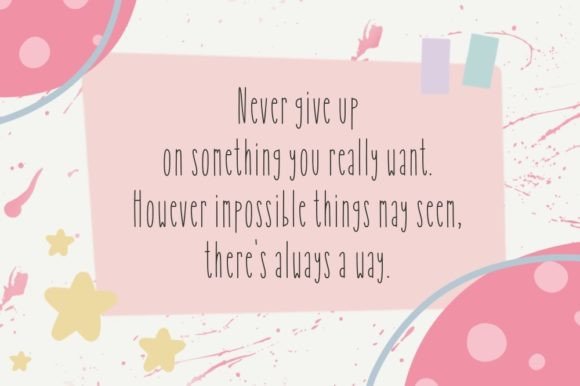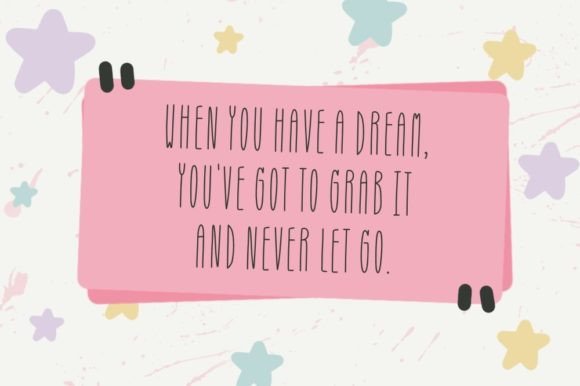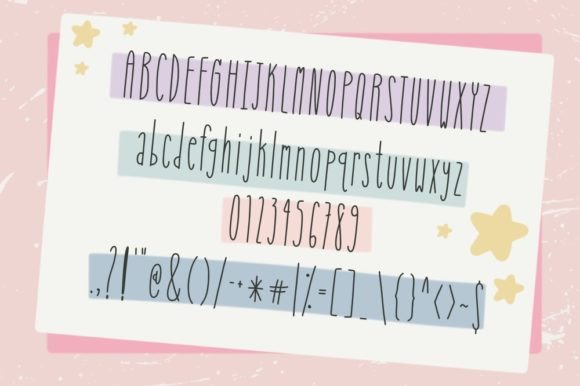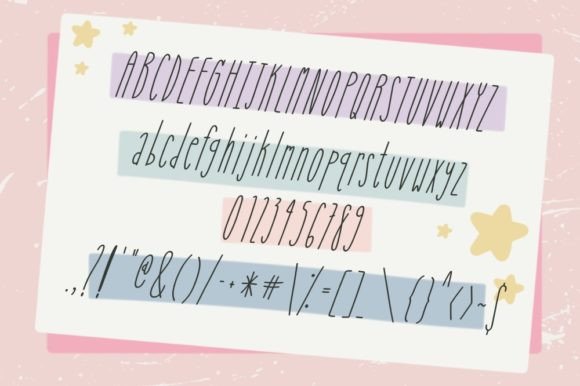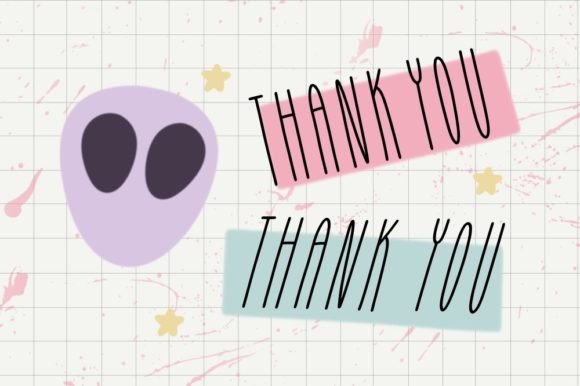
Alieny Font
About Alieny Font
**Alieny** is a delightful and charming handwritten font with a slim and tall appearance. It radiates cuteness and sweetness, making it a versatile choice for various creative projects. Whether you’re using it for taking notes, crafting, digital design, presentations, titles, or designing greeting cards, this font is designed to be your go-to choice, suitable for any occasion.
The font’s slim and tall style is at the heart of its charm. It adds a touch of uniqueness and elegance to your designs, making them stand out and exuding a sense of sophistication. Whether you’re creating stylish titles or crafting endearing greeting cards, **Alieny** effortlessly integrates into a wide range of design contexts.
**Alieny** is equally versatile in digital and print applications. Whether you’re using it to design a sleek digital presentation or incorporating it into the pages of printed materials, the font maintains its slim and tall character. Its readability ensures your message is conveyed effectively, while its handwritten style adds an extra layer of visual appeal.
What sets **Alieny** apart is its ability to convey a sense of cuteness and charm. It invites your audience to engage with your creative ideas in a way that resonates with its delightful and handwritten quality. With **Alieny** as part of your creative toolkit, you have the means to infuse a sense of sweetness and elegance into your designs, making them memorable and endearing.
**Alieny** offers a wide array of customization options, allowing you to fine-tune your text to match your creative vision precisely. This flexibility empowers you to craft designs that match your artistic preferences with precision.
In conclusion, **Alieny** is more than just a font; it’s a design asset that elevates your creative projects with cuteness, sweetness, and a touch of elegance. Embrace its slim and tall handwritten style, and let it inspire you to craft designs that radiate charm and sophistication. With **Alieny** at your disposal, your creative possibilities are expansive, enabling you to create captivating and memorable works of art through its cute and elegantly crafted typography.